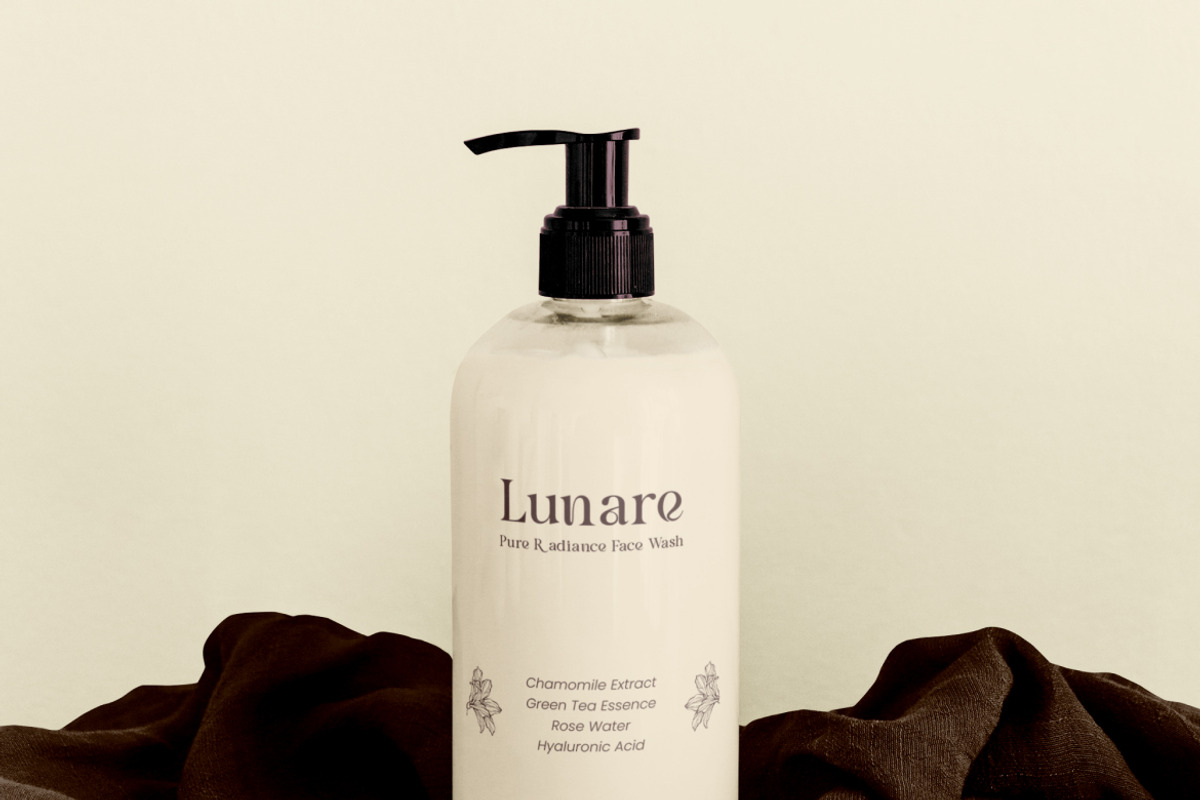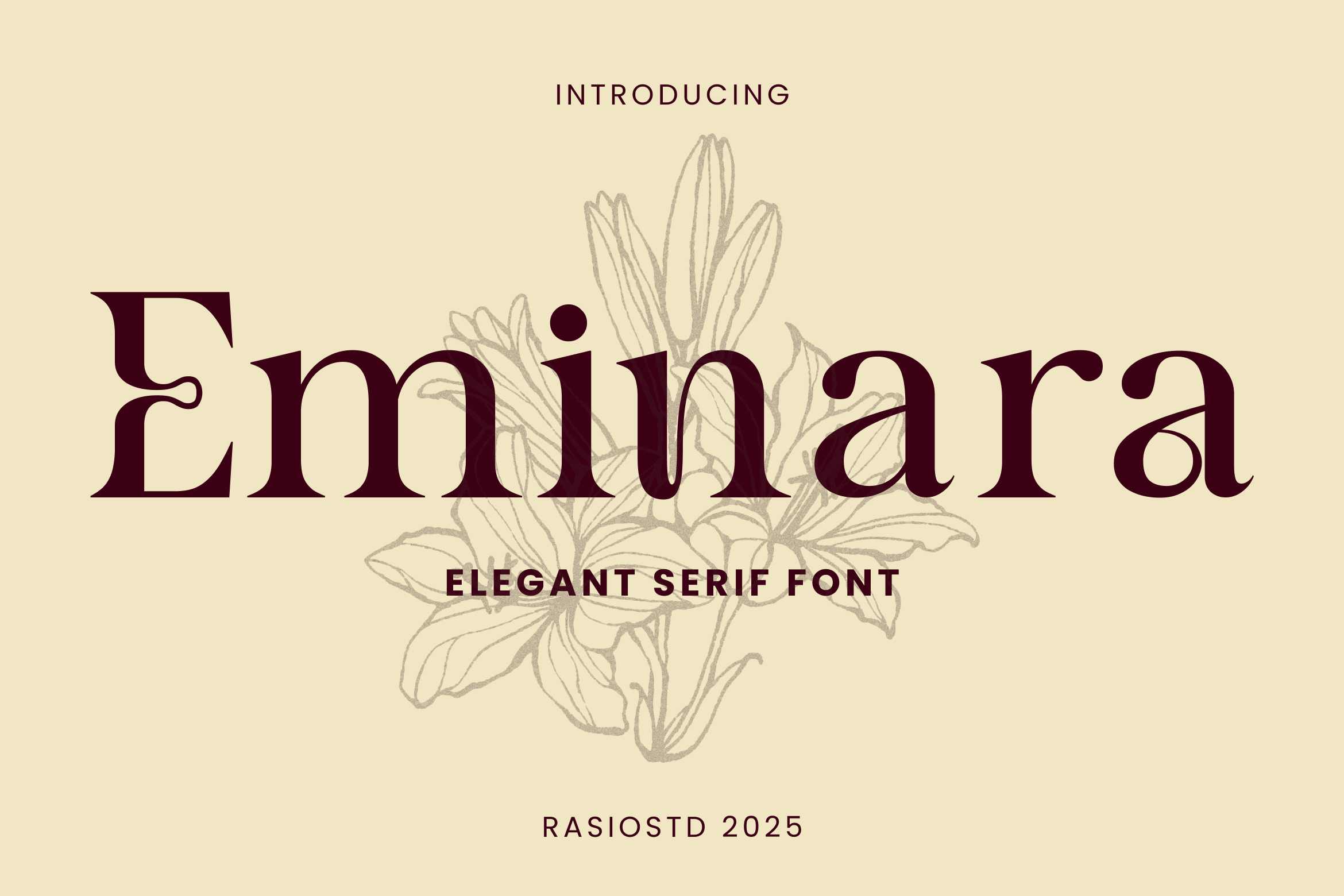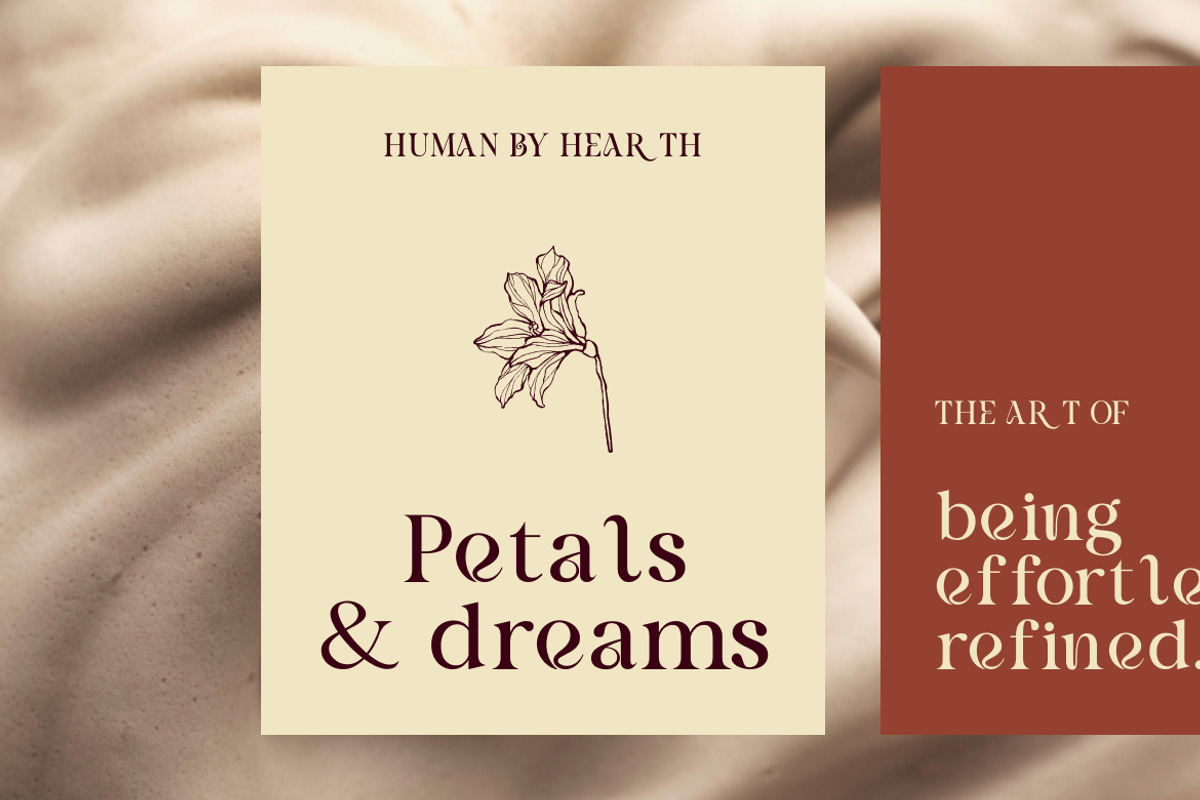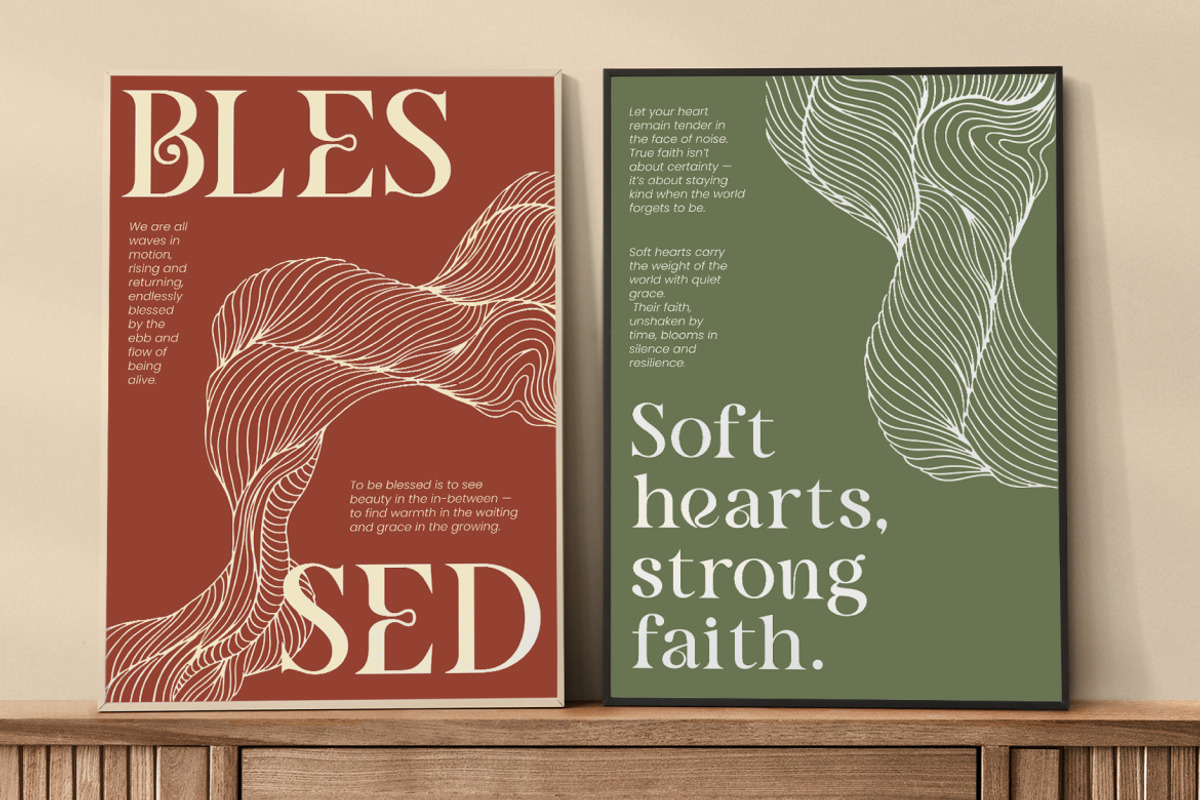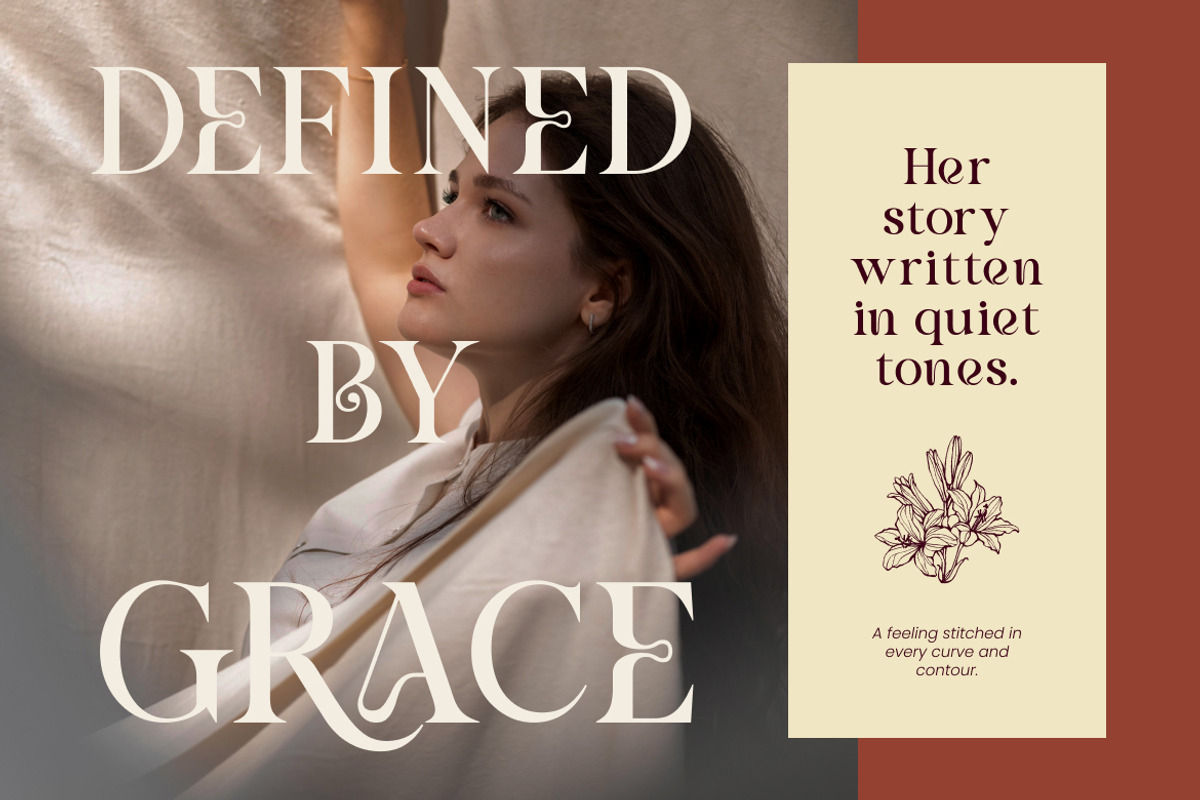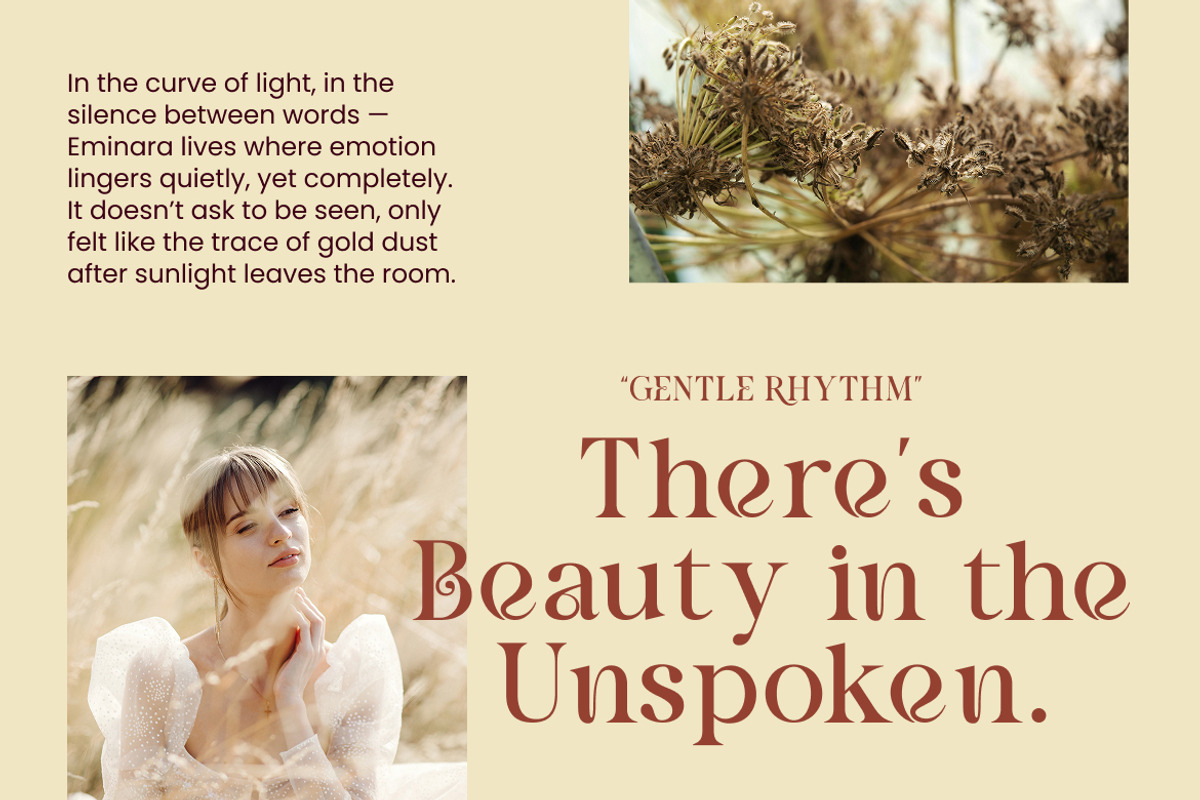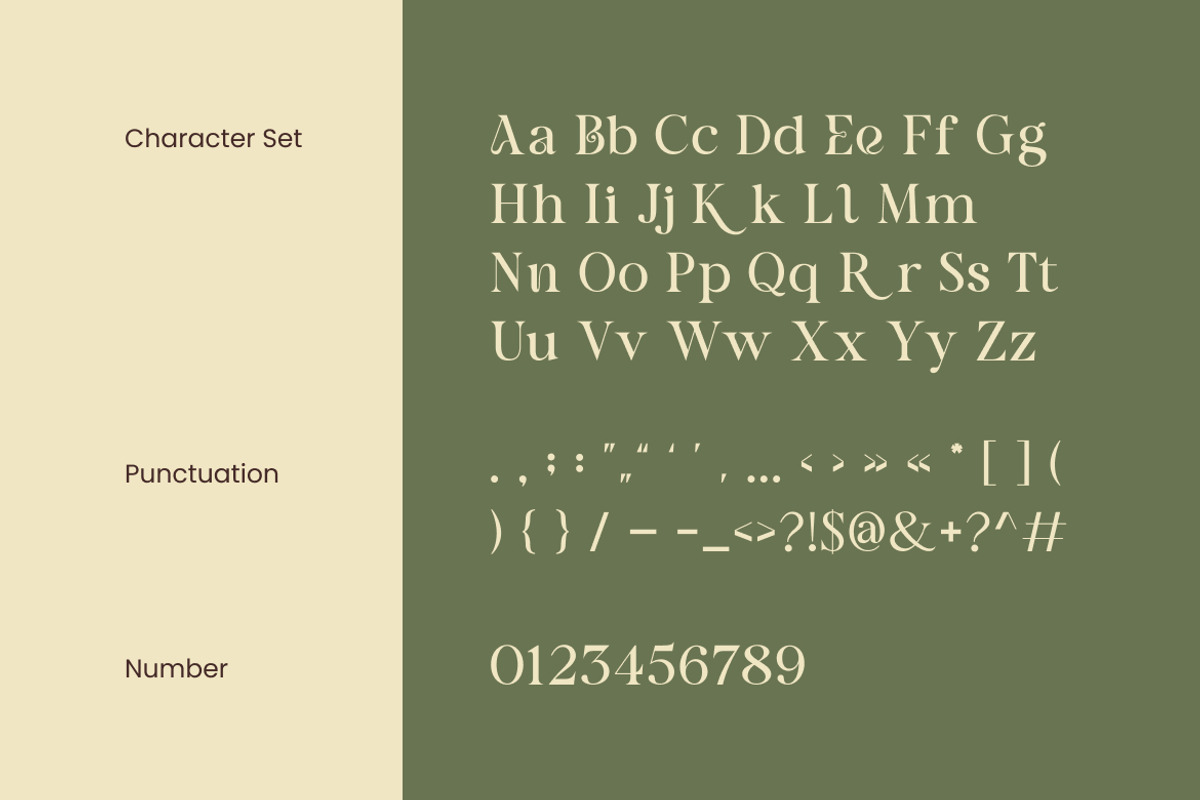
Eminara Elegant Serif Font
Eminara is a refined elegant serif typeface designed to express quiet luxury and timeless sophistication. With graceful curves, balanced proportions, and delicately sculpted serifs, it brings a soft yet confident presence to any design. The font includes uppercase, lowercase, numbers, and punctuation, carefully crafted for harmonious composition.
Eminara is designed for projects that require subtle elegance and emotional depth. It works beautifully for fashion editorials, luxury branding, wedding invitations, beauty packaging, boutique logos, lifestyle blogs, and refined social media campaigns. Its poetic character makes it perfect for brands seeking a soft yet memorable visual identity.
- Graceful high-contrast serif structure with refined stroke transitions
- Softly sculpted serifs that create a gentle, flowing rhythm
- Elegant curved terminals with delicate detailing
- Balanced proportions for timeless and harmonious composition
- Carefully crafted spacing for luxurious display and readable editorial text
- Luxury brand identity systems seeking timeless elegance
- Fashion editorials and high-end magazine layouts
- Wedding invitations and refined event stationery
- Beauty, skincare, and boutique product packaging
- Lifestyle branding and poetic social media campaigns
Eminara brings refined elegance to every letter